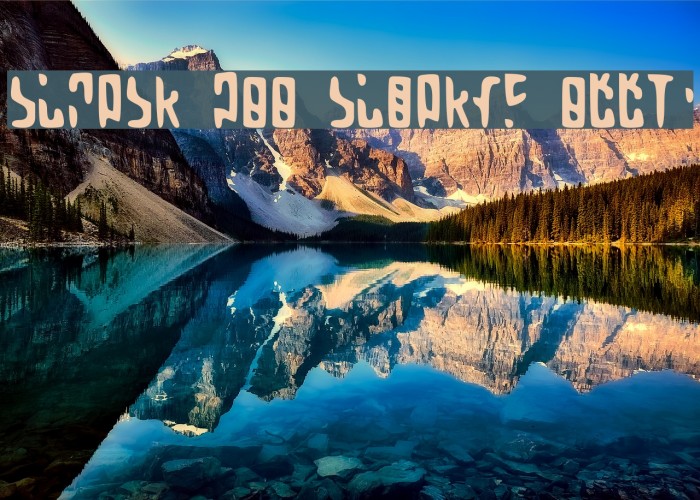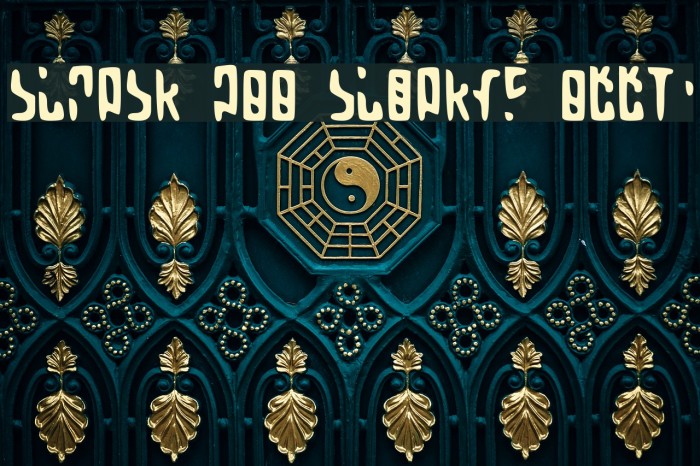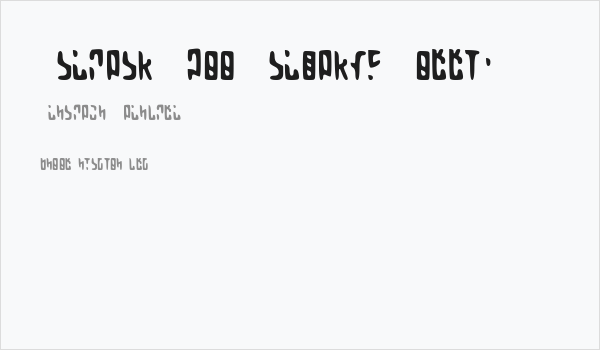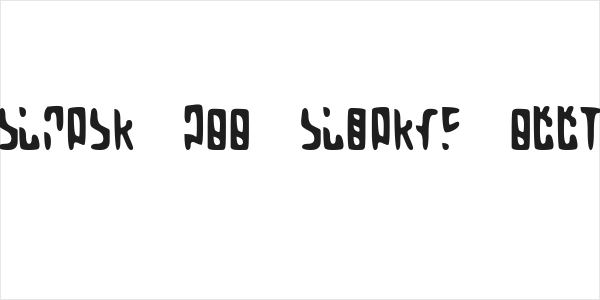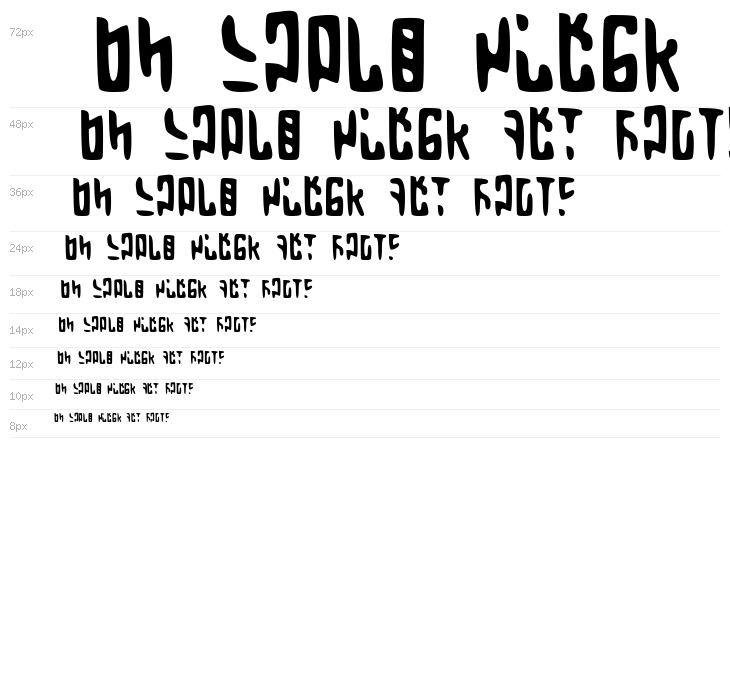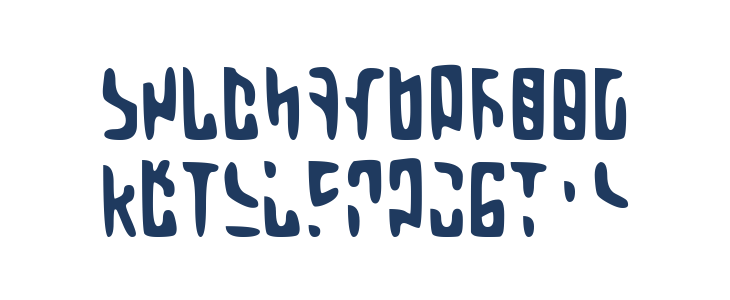
Martian Hull Markings Gloopy Font
Martian Hull Markings Gloopy Description
This font features a unique, alien-like design with organic, flowing shapes that resemble extraterrestrial markings. The characters have a gloopy, fluid appearance, with irregular curves and varying thicknesses that create a sense of movement. The overall look is both mysterious and playful, making it stand out as a decorative choice. The letters are bold and have a slightly condensed form, with medium contrast in stroke thickness. This font is ideal for projects that require a futuristic or otherworldly aesthetic, such as sci-fi themed designs, video game graphics, or creative branding.
Overall StyleFuturistic, Playful, Mysterious
Use CaseHeadlines, Logos, Decorative elements
Proposed ProjectsIdeal for sci-fi designs, video game graphics, creative branding, and futuristic themes.